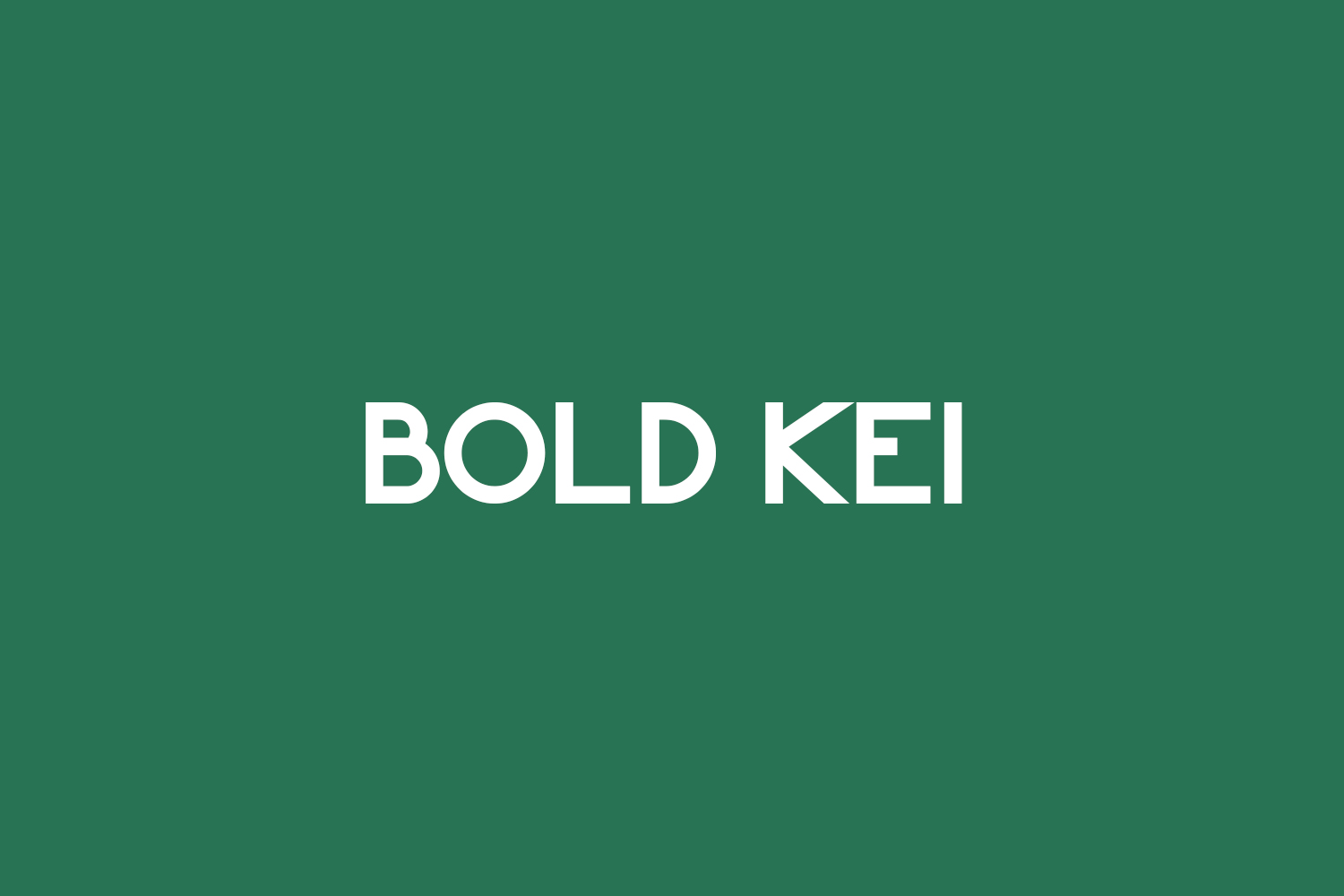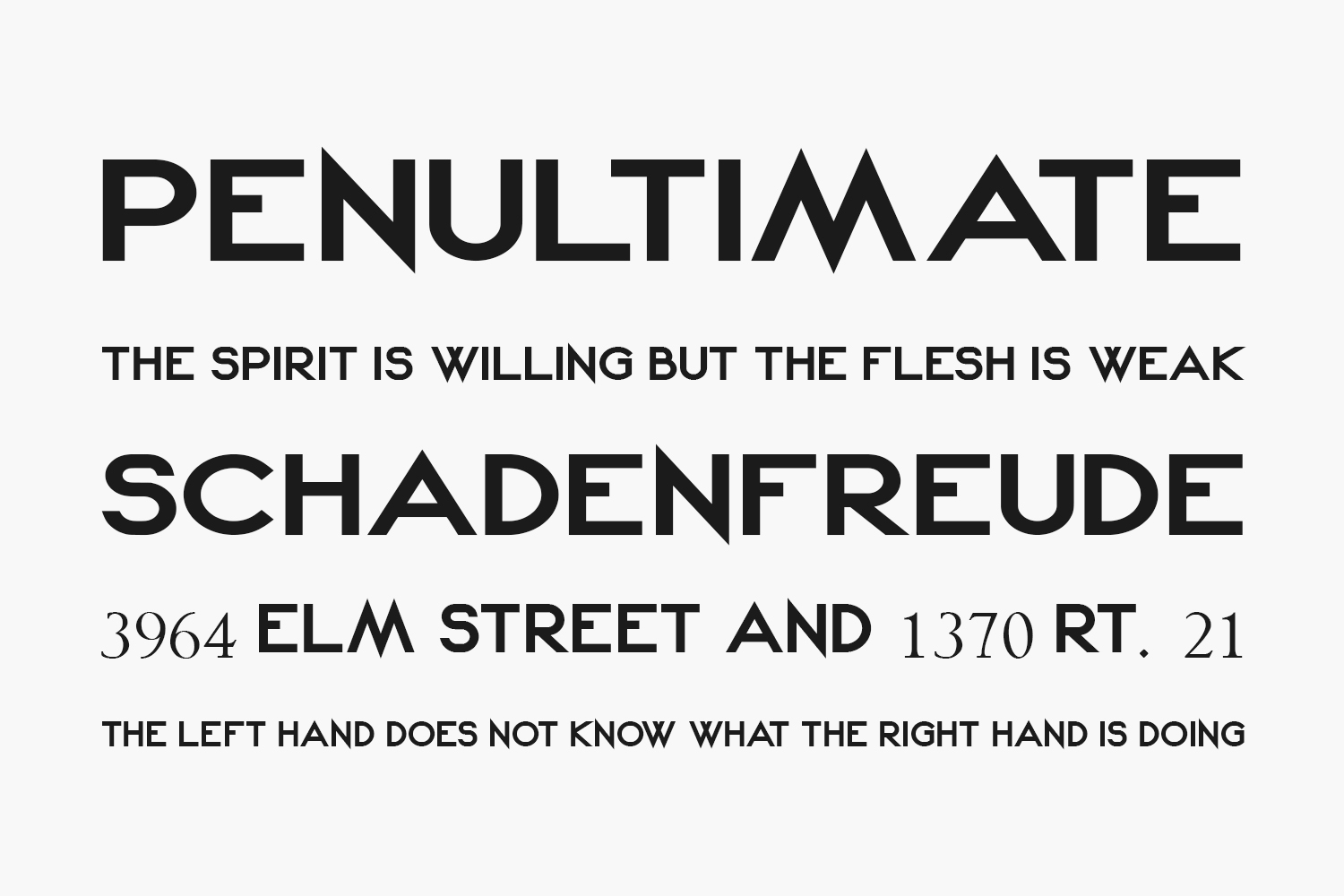
Bold Kei Free Font is a new font appearance with sharp & firm shades in bold style, perfect for your extraordinary projects. This is a free font for personal use only. Please purchase the full version for commercial use. If you have questions write to the author.
Designed by Arukidz.fl